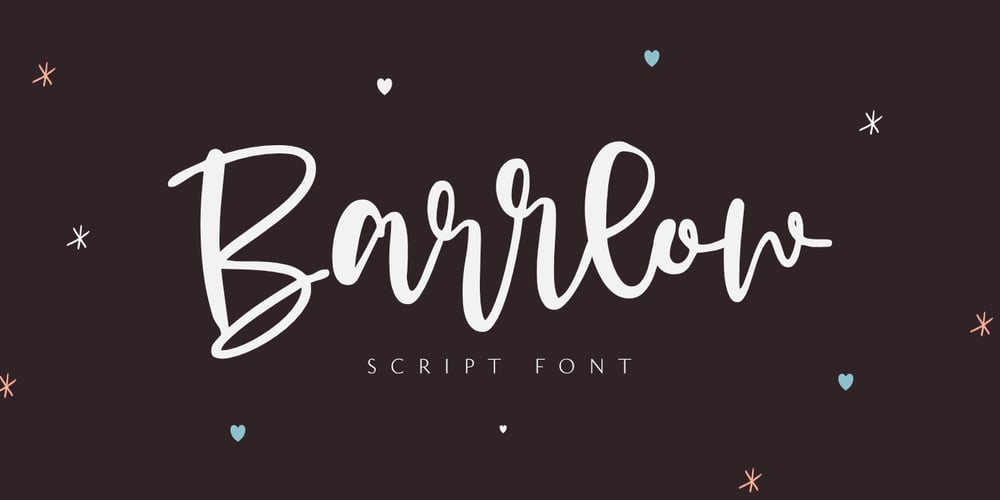
Barrlow Font Family was designed by Aldy Sidik and published by Epiclinez. Barrlow contains 1 styles and family package options. Barrlow is an awesome and bolded script font that is incredibly versatile and will look great on any design or craft.So what’s included: Basic Latin, numbers, symbols, punctuations, and ligatures Simple Installations: works on PC & Mac Multilingual Support includes Afrikaans Albanian Catalan Danish Dutch English Estonian Finnish French German Italian Norwegian Portuguese Spanish Swedish Zulu. Accented Characters : ÀÁÂÃÄÅÆÇÈÉÊËÌÍÎÏÑÒÓÔÕÖØŒŠÙÚÛÜŸÝŽàáâãäåæçèéêëìíîïñòóôõöøœšùúûüýÿžß Accessible in Adobe Illustrator, Adobe Photoshop, Adobe InDesign, even works on Microsoft Word PUA Encoded and fully accessible without additional design software Thank you! We hope you enjoy our font!